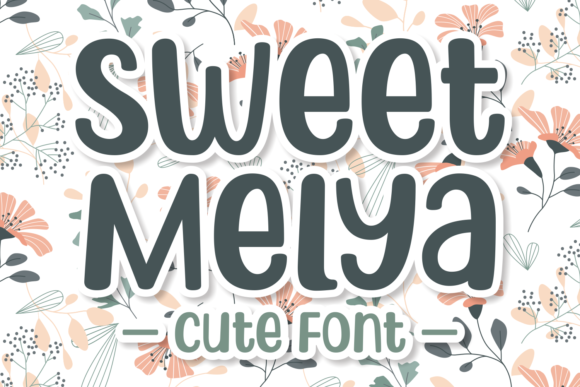
Welcome to the world of Sweet Melya Font, a captivating display font that oozes charm and playfulness. Prepare to be enchanted by its whimsical strokes and irresistible character that bring a touch of magic to any design project you embark on.
Picture this: Your designs, logos, and blog graphics radiating with a delightful cartoonish vibe, capturing the attention of your audience and leaving them spellbound. Sweet Melya is your secret weapon to create designs that resonate with emotions and ignite imaginations. It's the perfect font to add a dash of whimsy to wedding stationery, art prints, and additional design projects, making them truly unforgettable.
With Sweet Melya, your packaging designs will exude creativity and stand out on shelves, demanding attention and inviting customers to explore your products. Unleash your creativity on social media, magazines, fashion, and creative branding projects, leaving a lasting impression on your followers and clients alike.
This font's versatility extends to editorial design and web designing, allowing you to craft visually captivating layouts and user interfaces that captivate visitors and keep them engaged. Imagine headlines that dance off the screen, body text that flows effortlessly, and elements that harmonize beautifully, creating a seamless and immersive experience for your users.
Sweet Melya is more than just a font; it's an invitation to let your imagination soar and create designs that resonate with your audience. Its delightful cartoonish charm will infuse your projects with a sense of wonder, making them stand out from the crowd and leaving a lasting impression. Embrace the magic of Sweet Melya and transform your designs into enchanting masterpieces that captivate and inspire.